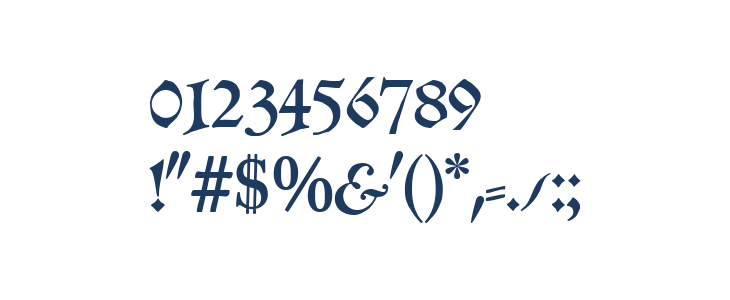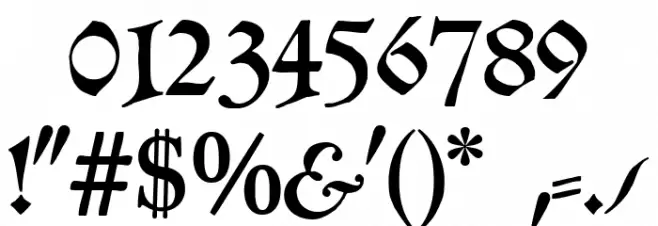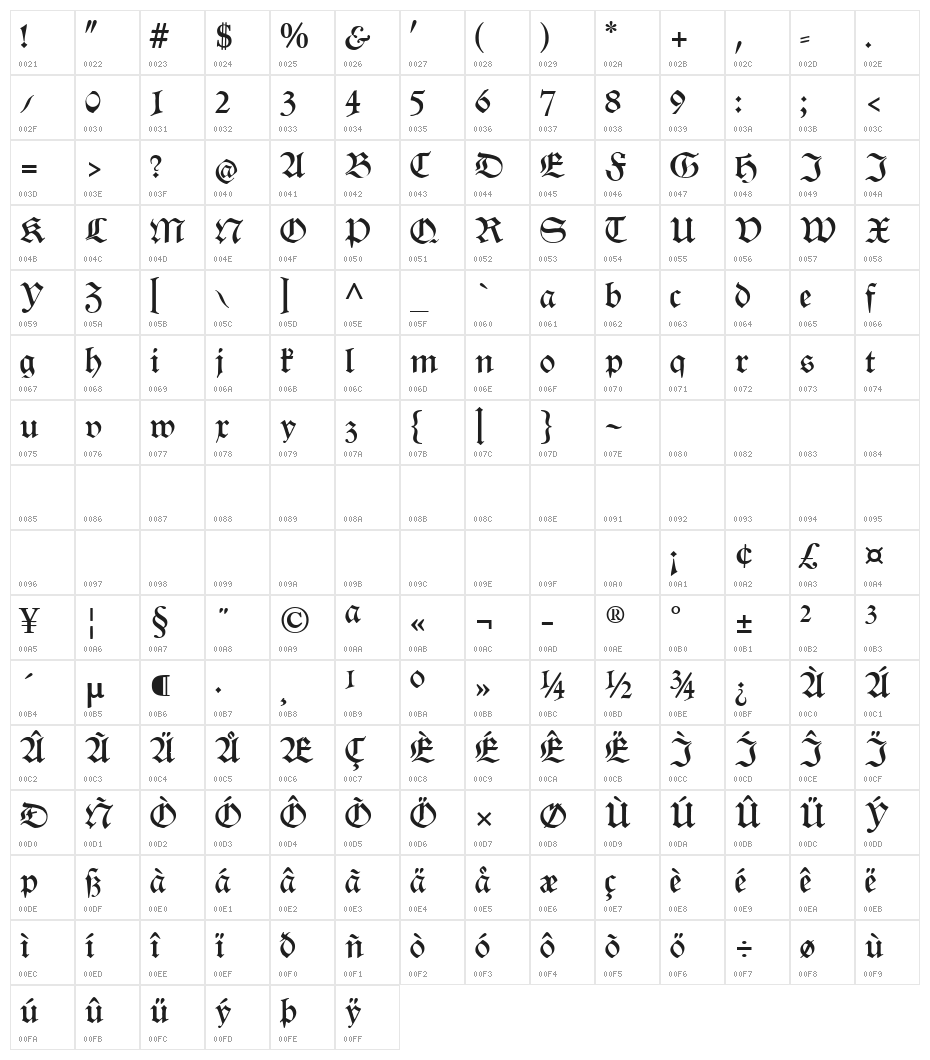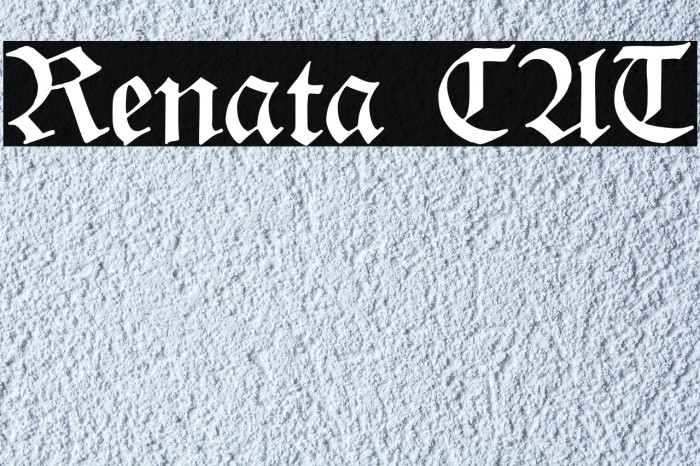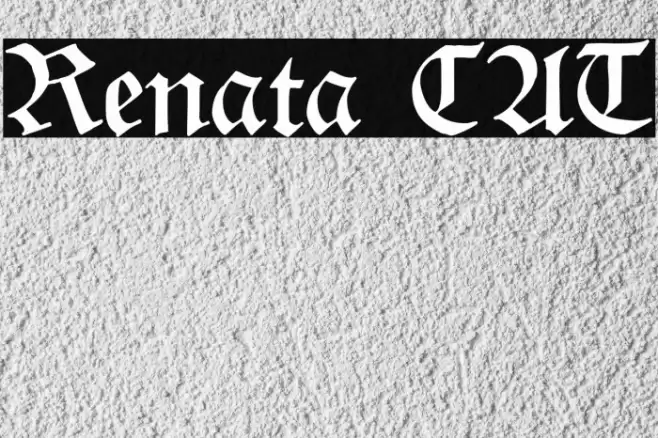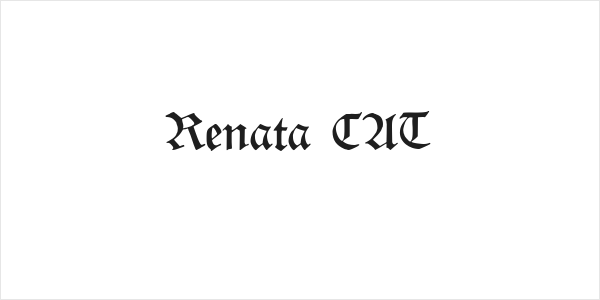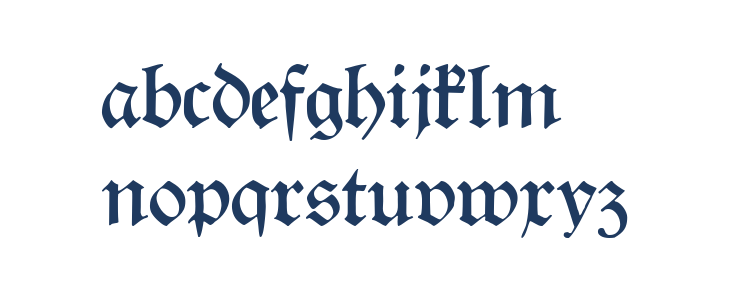
Renata CAT Font
Renata CAT Description
This font exhibits a classic blackletter style, characterized by its intricate and ornate design. The uppercase letters are bold and angular, with sharp, pointed serifs and a strong vertical emphasis. The lowercase letters maintain the same decorative flair, featuring elaborate curves and a distinct medieval aesthetic. Numbers are equally stylized, with a consistent weight and form that complements the alphabet. Special characters are designed with the same attention to detail, ensuring a cohesive look across all symbols. This font is ideal for projects that require a historical or traditional touch, offering a sense of elegance and sophistication.
| Use Case | Headlines, Logos, Decorative text |
| Proposed Projects | Suitable for historical documents, wedding invitations, book covers, and branding that requires a traditional or gothic touch. |